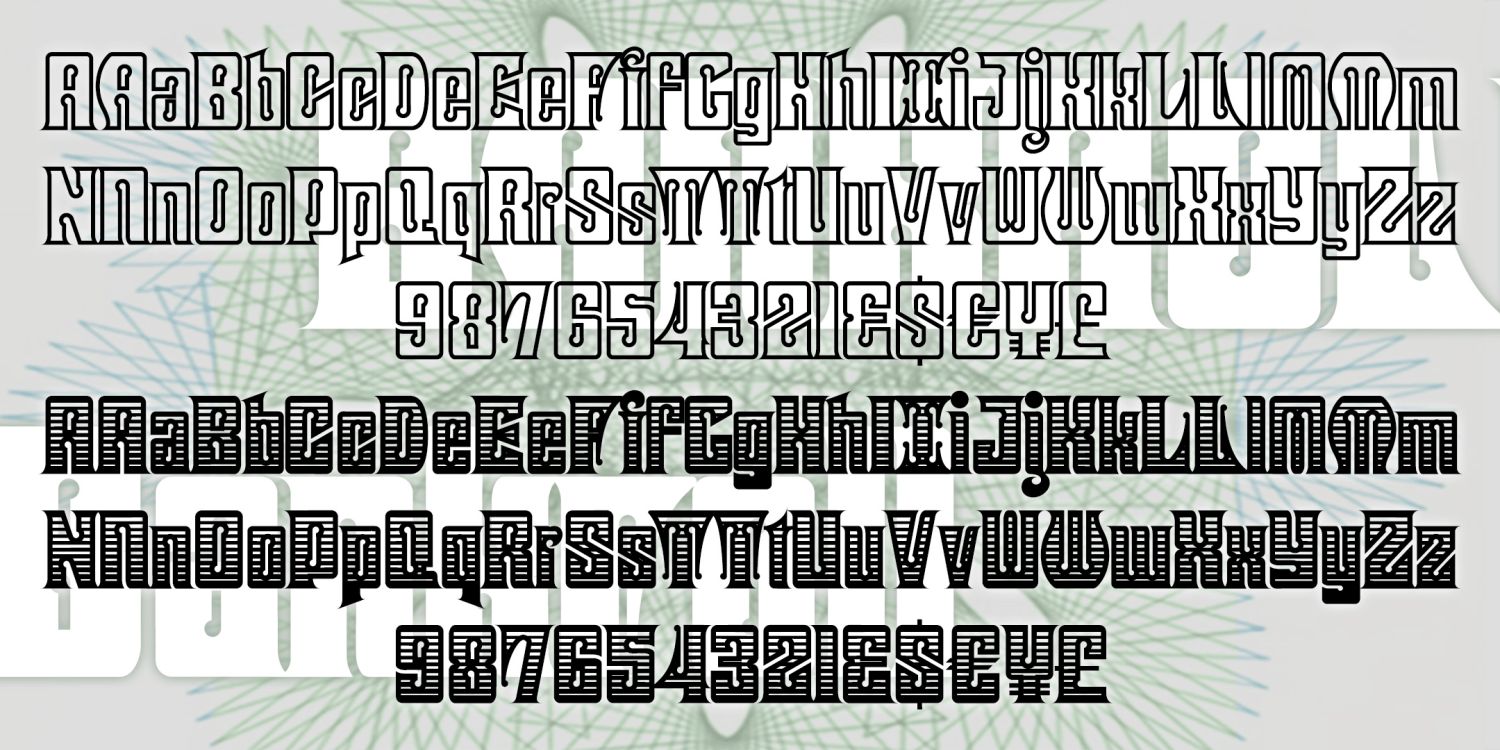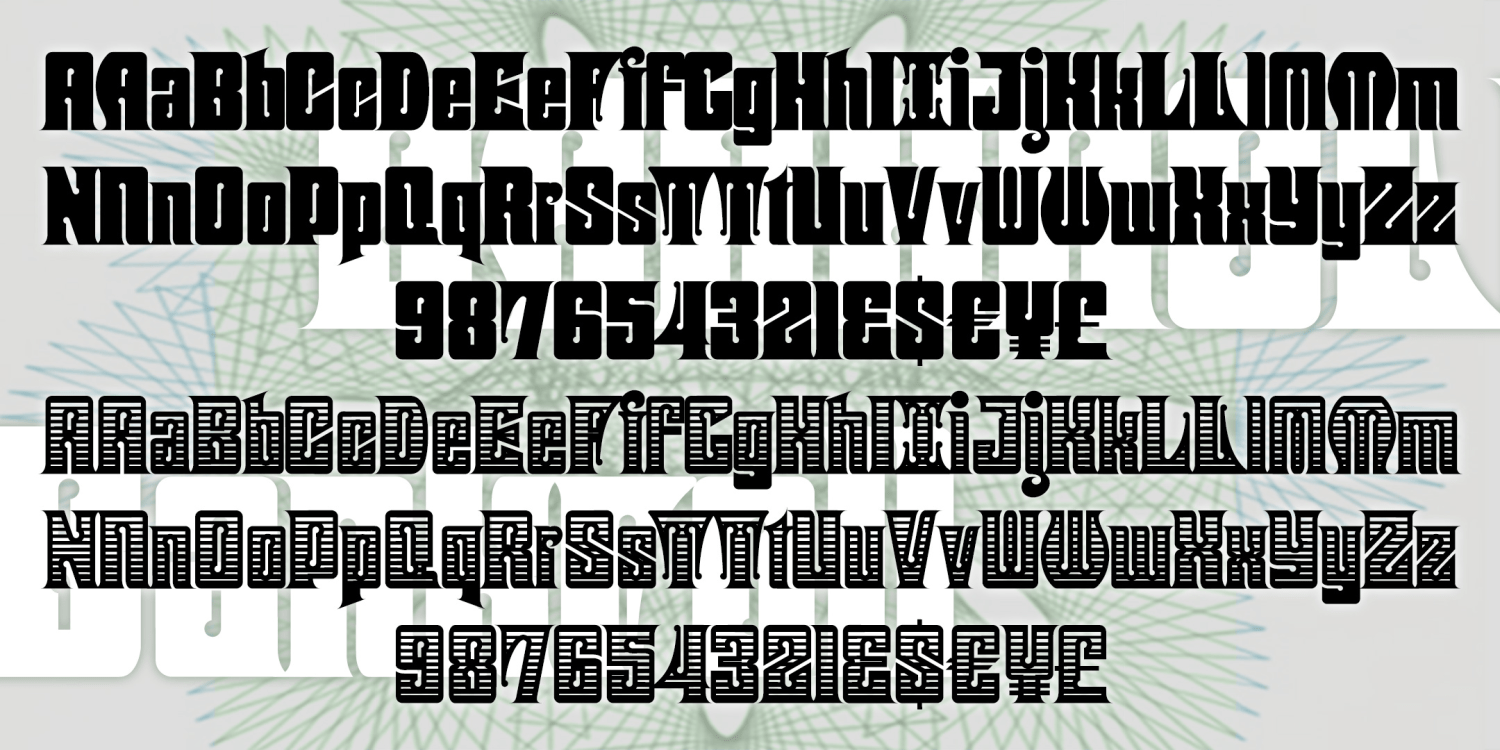
Bankroll
About Bankroll
BANKROLL was inspired by fonts used for 19th-century banknotes, stock certificates, and the like. Completely reimagined and redrawn, Bankroll combines the Victorian mix of solid construction and decoration that people liked about steampunk. In four varieties:…